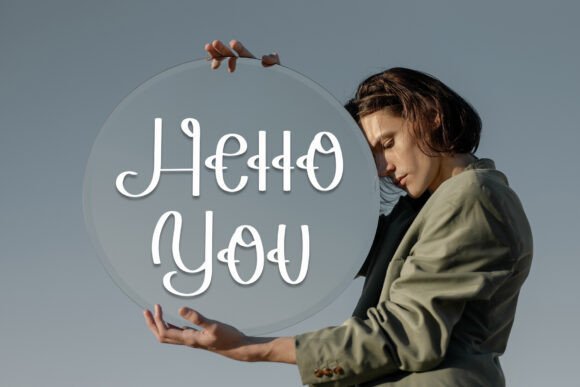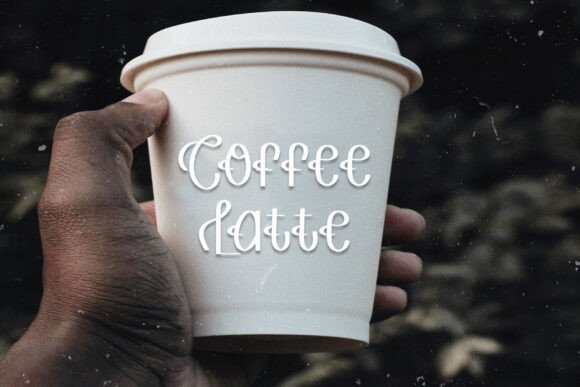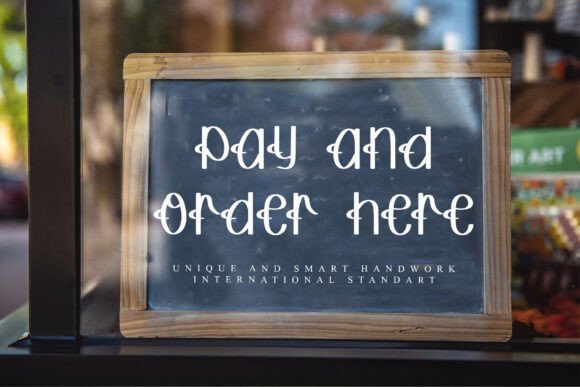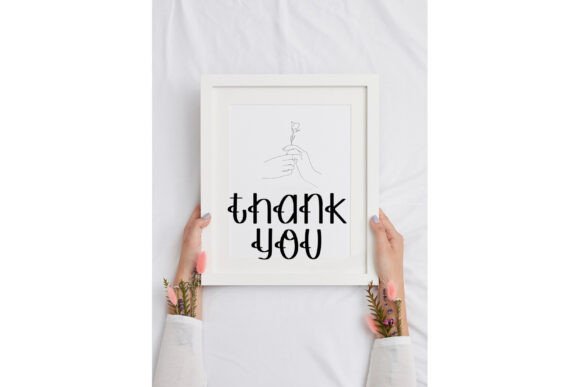
Introducing Golia Font: Elevate Your Designs with Elegance and Sophistication
In the world of typography, fonts play a crucial role in conveying messages, evoking emotions, and setting the tone for various projects. Whether you’re a designer, craftsperson, or simply someone who appreciates the art of beautiful writing, finding the right font can make all the difference. This is where Golia Font comes into play – a unique and elegant typeface designed to add a touch of sophistication to your creations.
The Essence of Golia Font
Golia Font is a meticulously crafted typeface, designed with a professional hand touch to ensure it stands out in any project. Its elegance and versatility make it an ideal choice for a wide range of applications, from formal to informal, and from digital to print. The font’s creator has carefully considered every detail, ensuring that Golia is not only aesthetically pleasing but also highly functional.
Perfect for Various Projects
One of the key benefits of Golia Font is its adaptability. It is perfectly suited for use in various projects, including:
- Wedding Invitation Cards: Add a touch of romance and sophistication to your wedding invitations with Golia Font.
- Birthday and Party Invitations: Make your party invitations stand out with a font that exudes joy and celebration.
- School Assignments: Elevate your school projects with a professional and elegant font that is sure to impress.
- Creative Projects: Whether you’re working on a logo, brochure, or any other creative project, Golia Font can help you achieve your desired aesthetic.
Why Choose Golia Font?
There are several reasons why Golia Font should be your go-to choice for your typography needs:
- Unique and Elegant: Golia Font boasts a unique and elegant design that will set your projects apart from the rest.
- Professional Hand Touch: The font’s professional hand touch gives it a personal and bespoke feel.
- Versatile: Use Golia Font across various projects, from formal events to creative assignments.
Tips for Using Golia Font
To get the most out of Golia Font, consider the following tips:
- Pair with Complementary Fonts: Experiment with pairing Golia Font with other fonts to create interesting and dynamic typography.
- Adjust Font Sizes: Play with different font sizes to add hierarchy and emphasis to your text.
- Use in Combination with Images: Combine Golia Font with high-quality images to create visually stunning compositions.
Golia Font is more than just a typeface – it’s a tool for creative expression. Its unique blend of elegance and professionalism makes it an invaluable asset for designers, craftspersons, and anyone looking to elevate their projects. With Golia Font, you can add a touch of sophistication to your wedding invitations, school assignments, creative projects, and more. Experience the difference that a carefully crafted font can make in your designs.